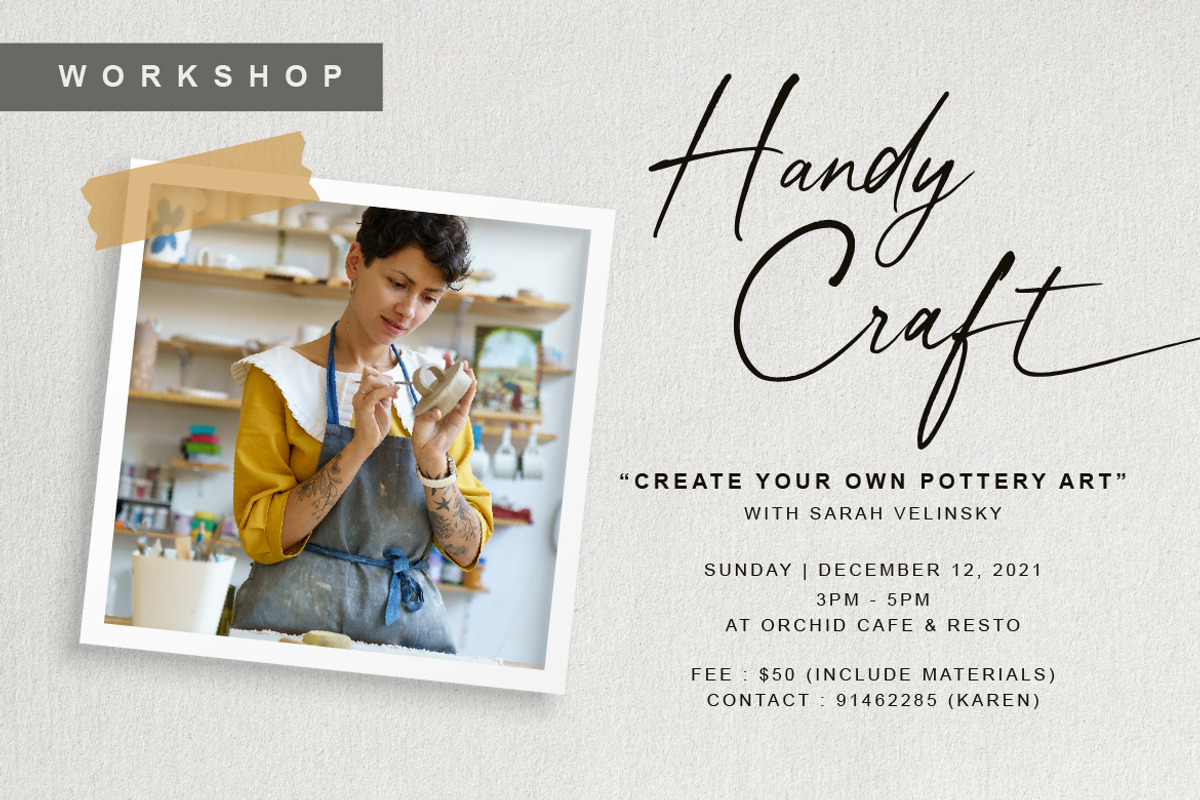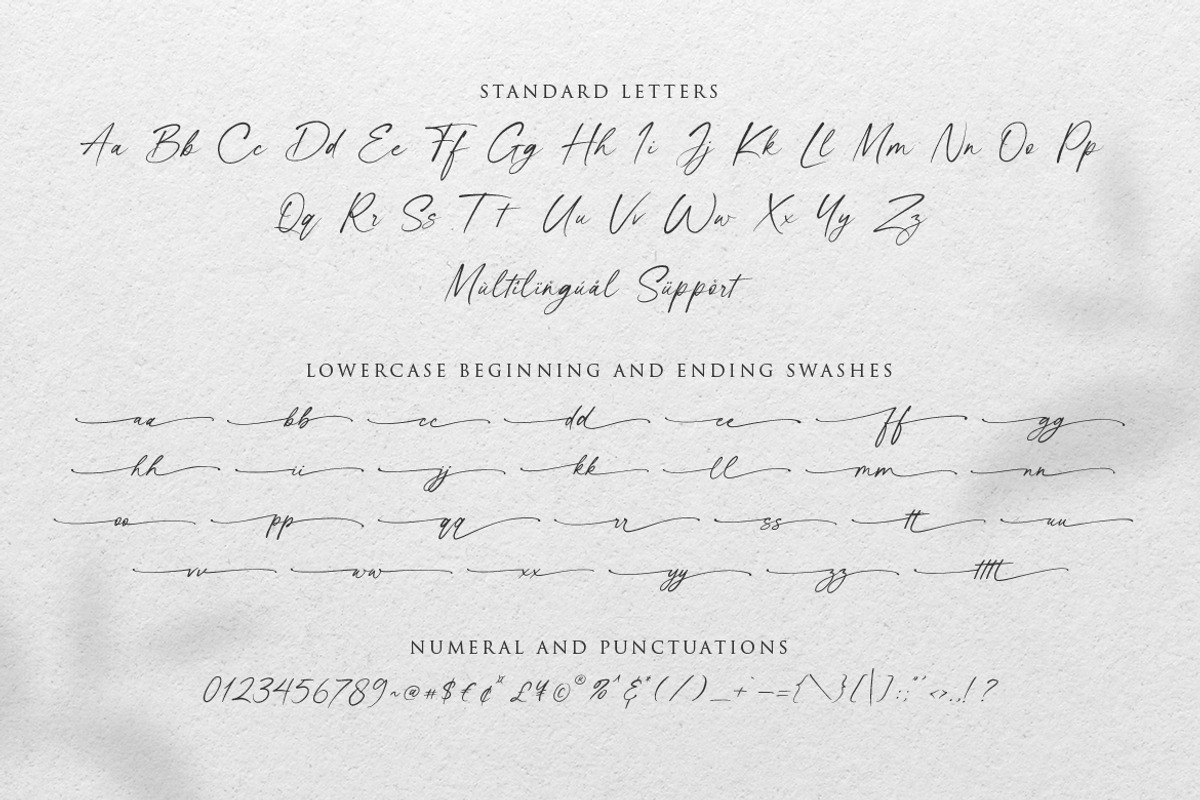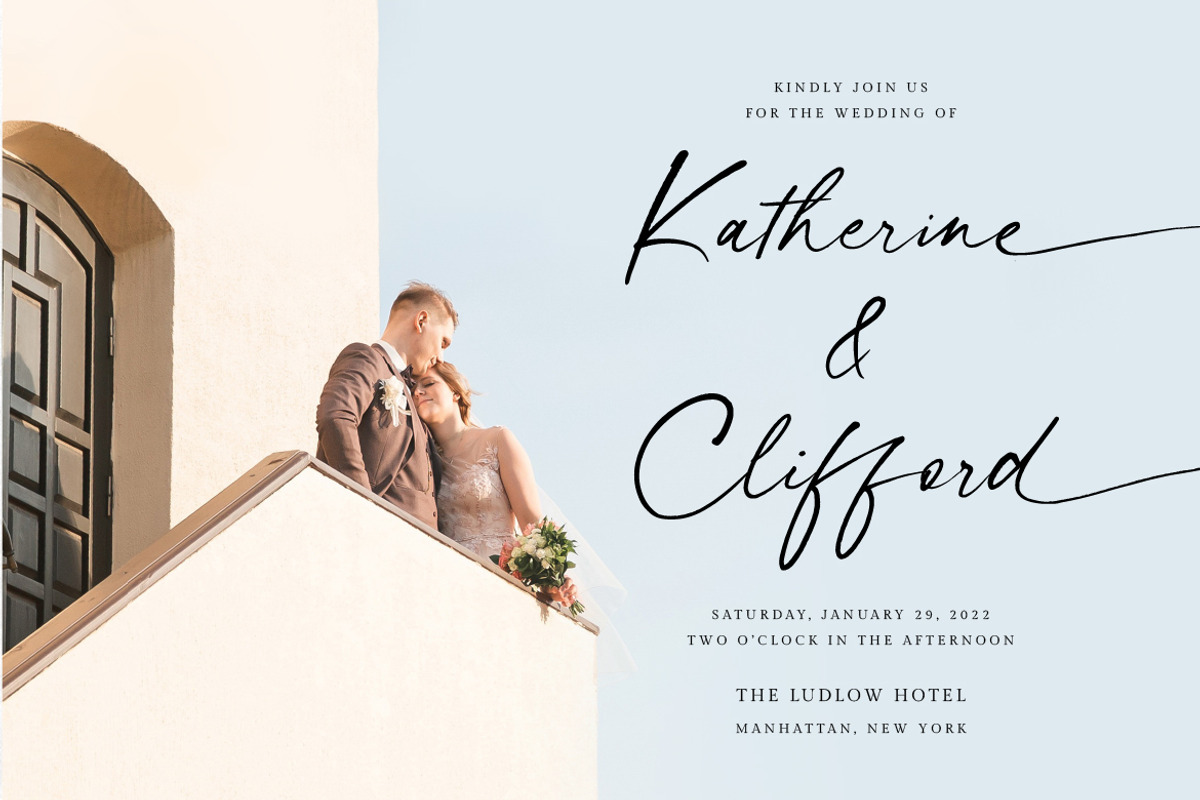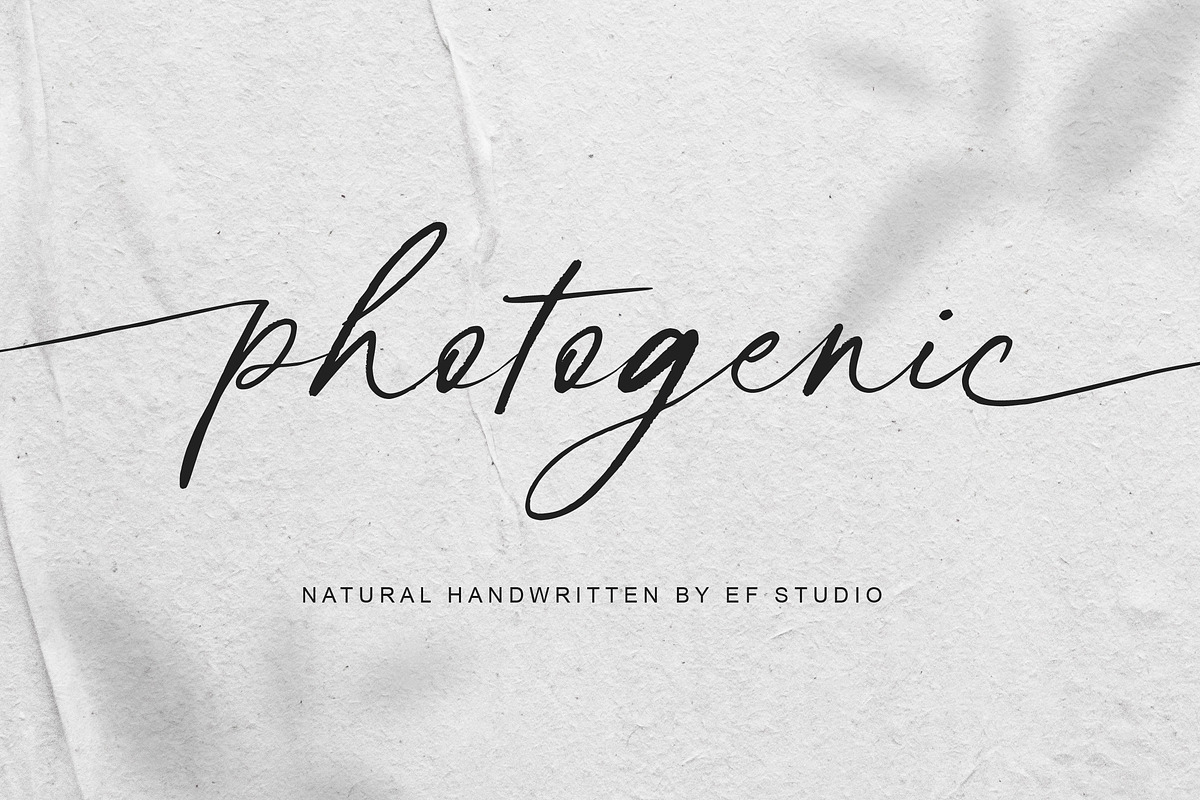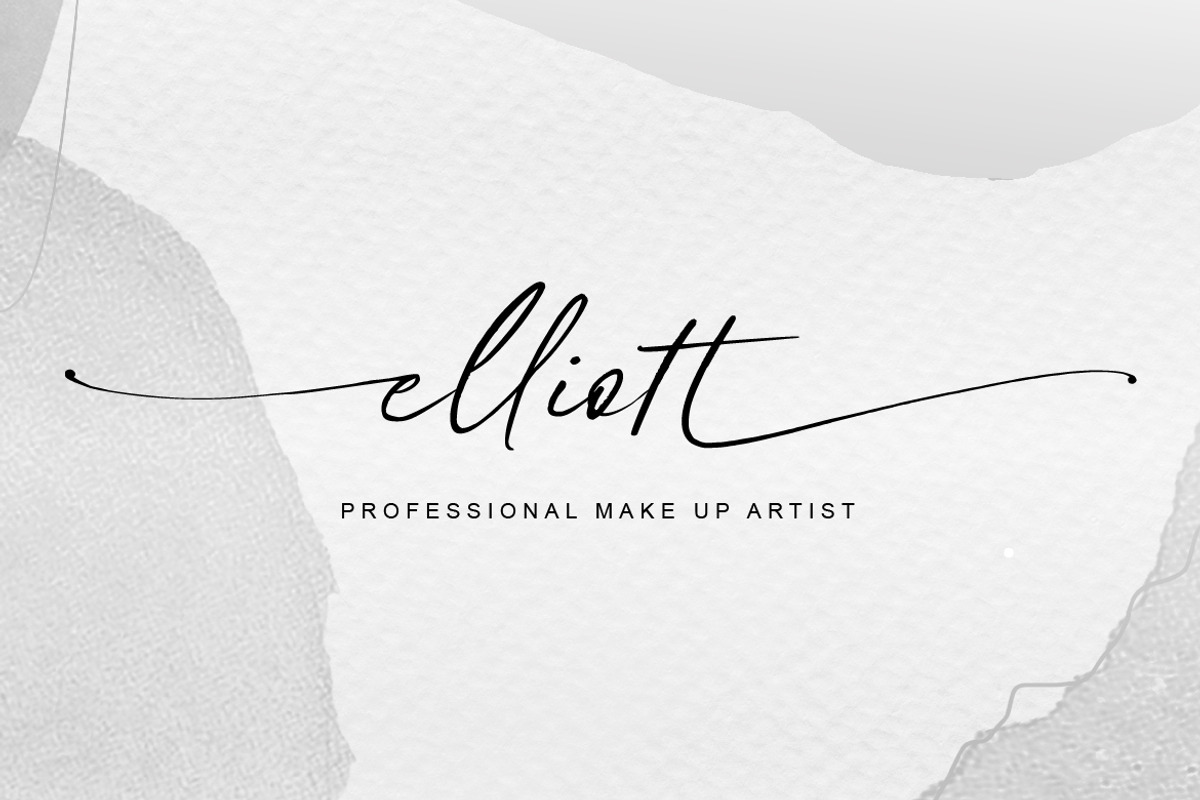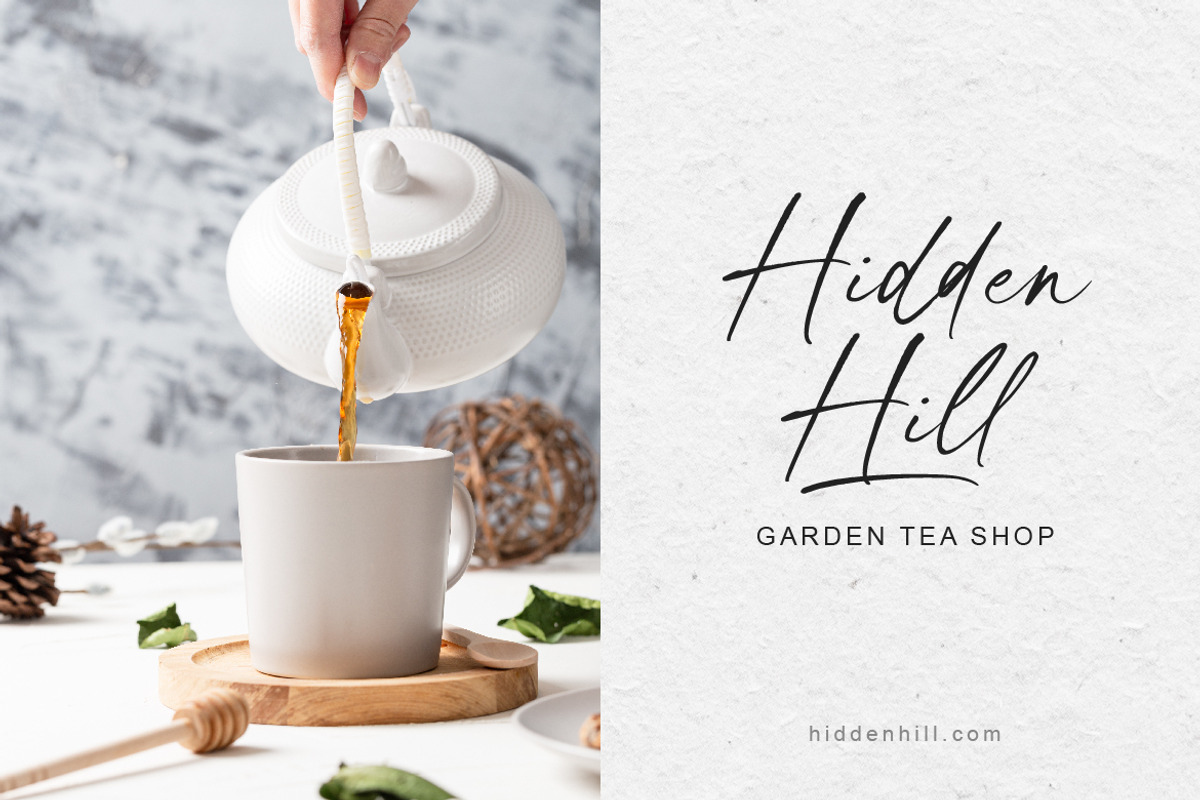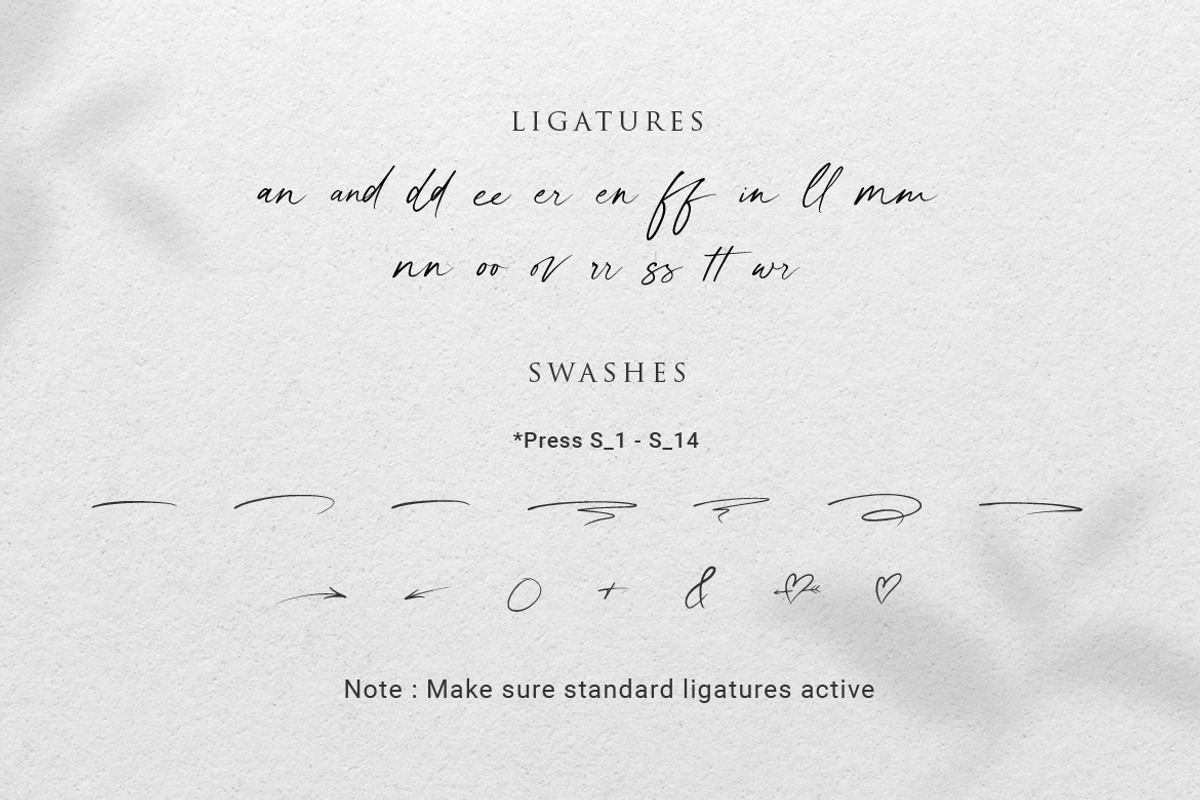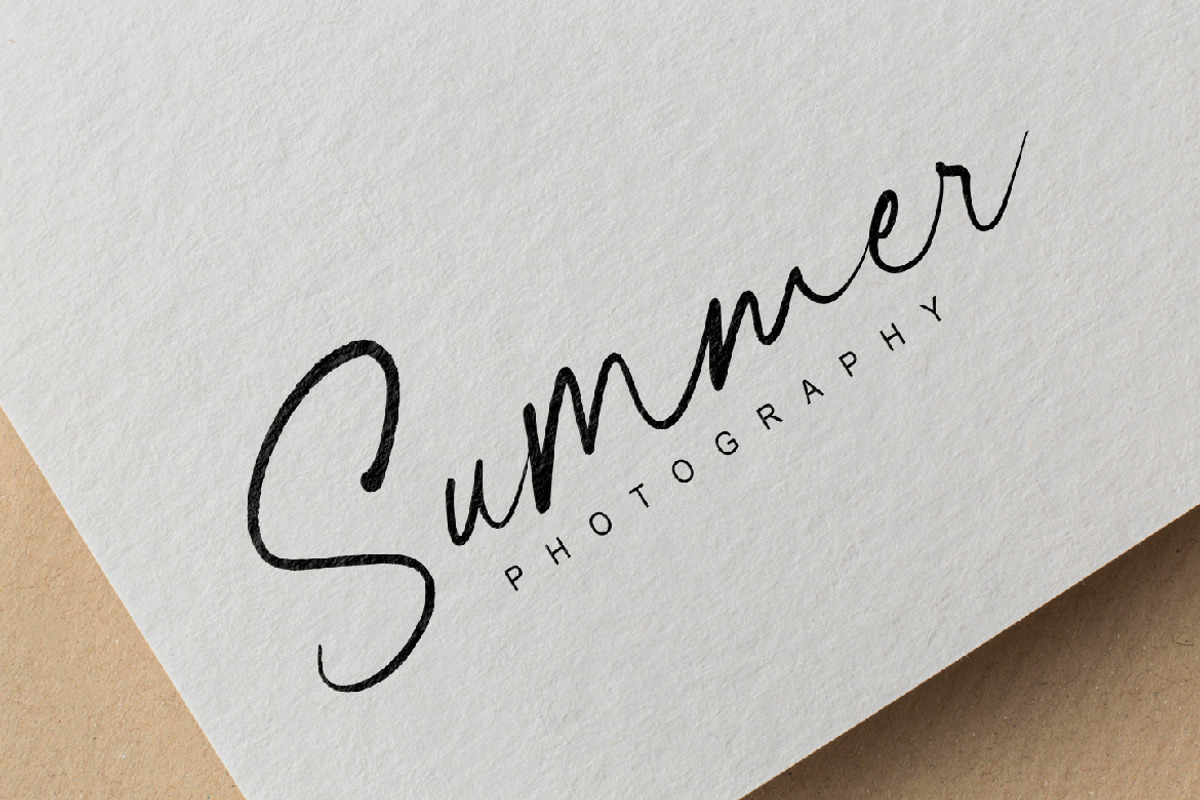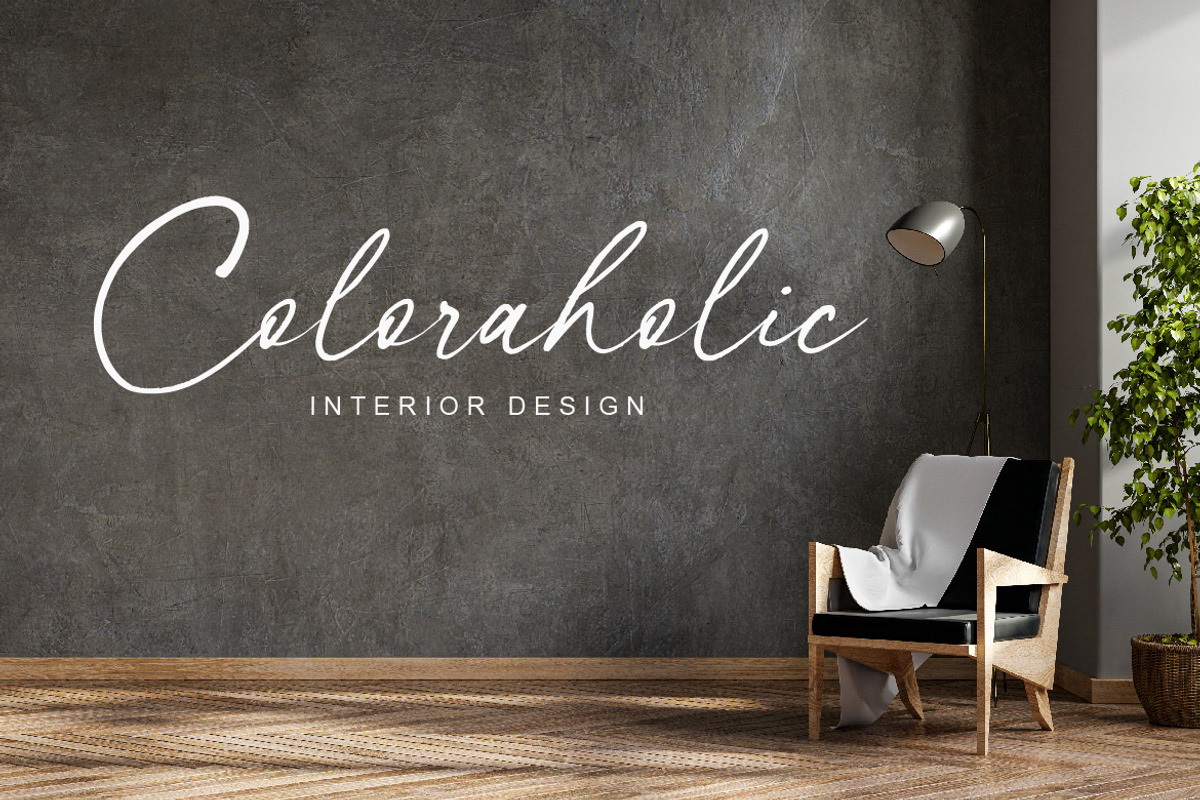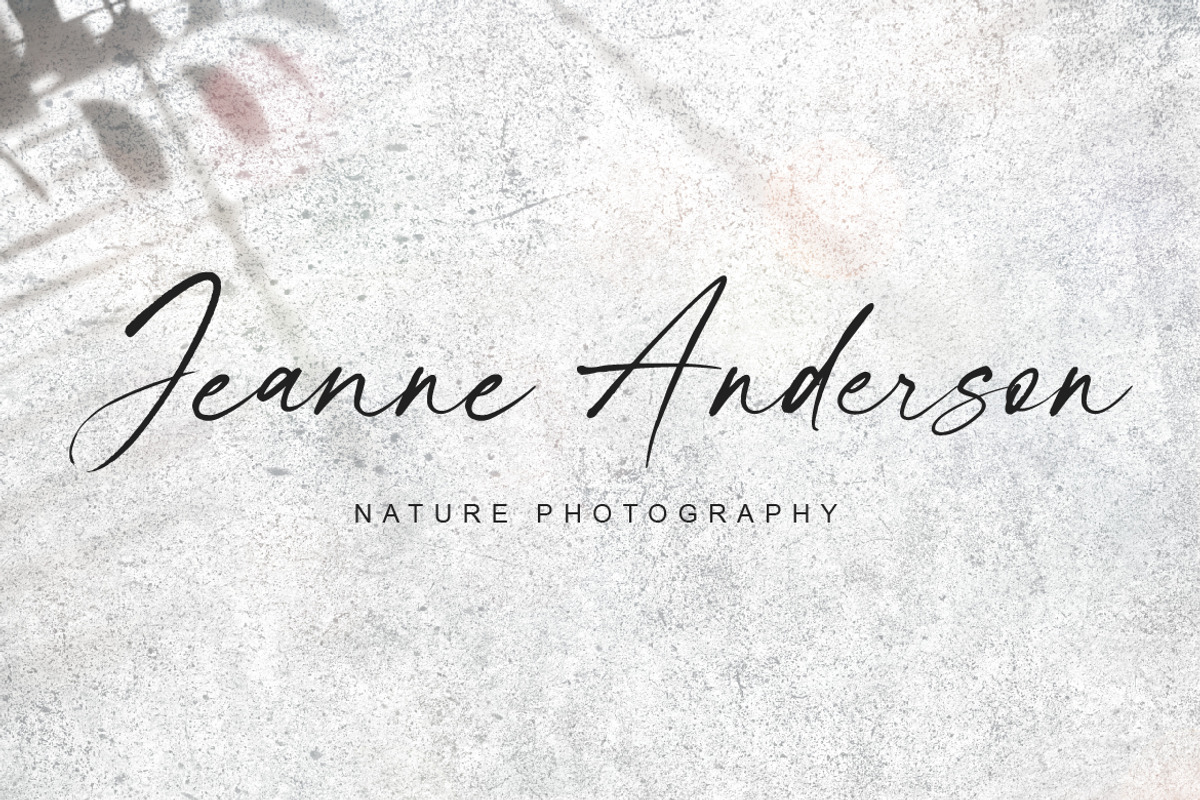
photogenic | Natural Handwritten
photogenic is natural handwritten that suitable for any purpose like wedding invitation, template, headline, branding, logo and so on. It has beautiful inky texture on its letter form. You will get full set of lowercase and uppercase letters, numerals and punctuation, multilingual symbols, lowercase beginning and ending swashes, ligatures and extra swashes.